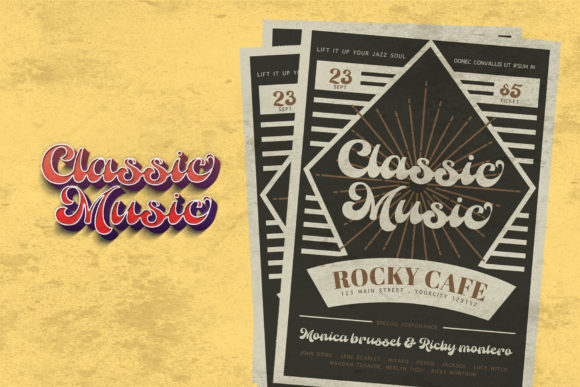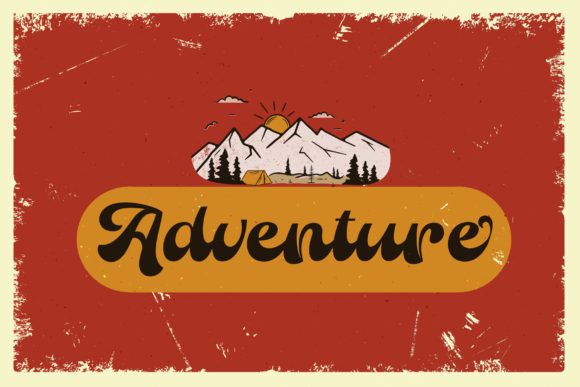
Monk Qalay Font
db-ku.com - Script & Handwritten -- Monk Qalay is a gorgeous, thick lettered and retro looking handwritten font, crafted to give your headlines and logotype projects a stylish touch. This font reads as strong, confident, and dynamic and can add tons of nostalgic character to your designs. Monk Qalay is PUA encoded which means you can access all of the glyphs and swashes with ease!